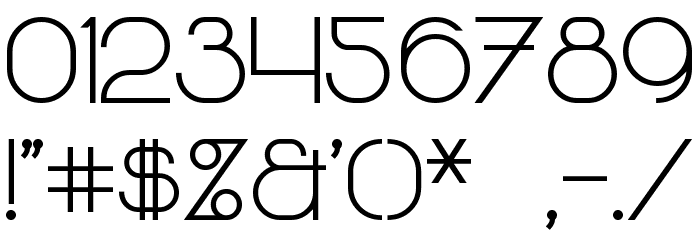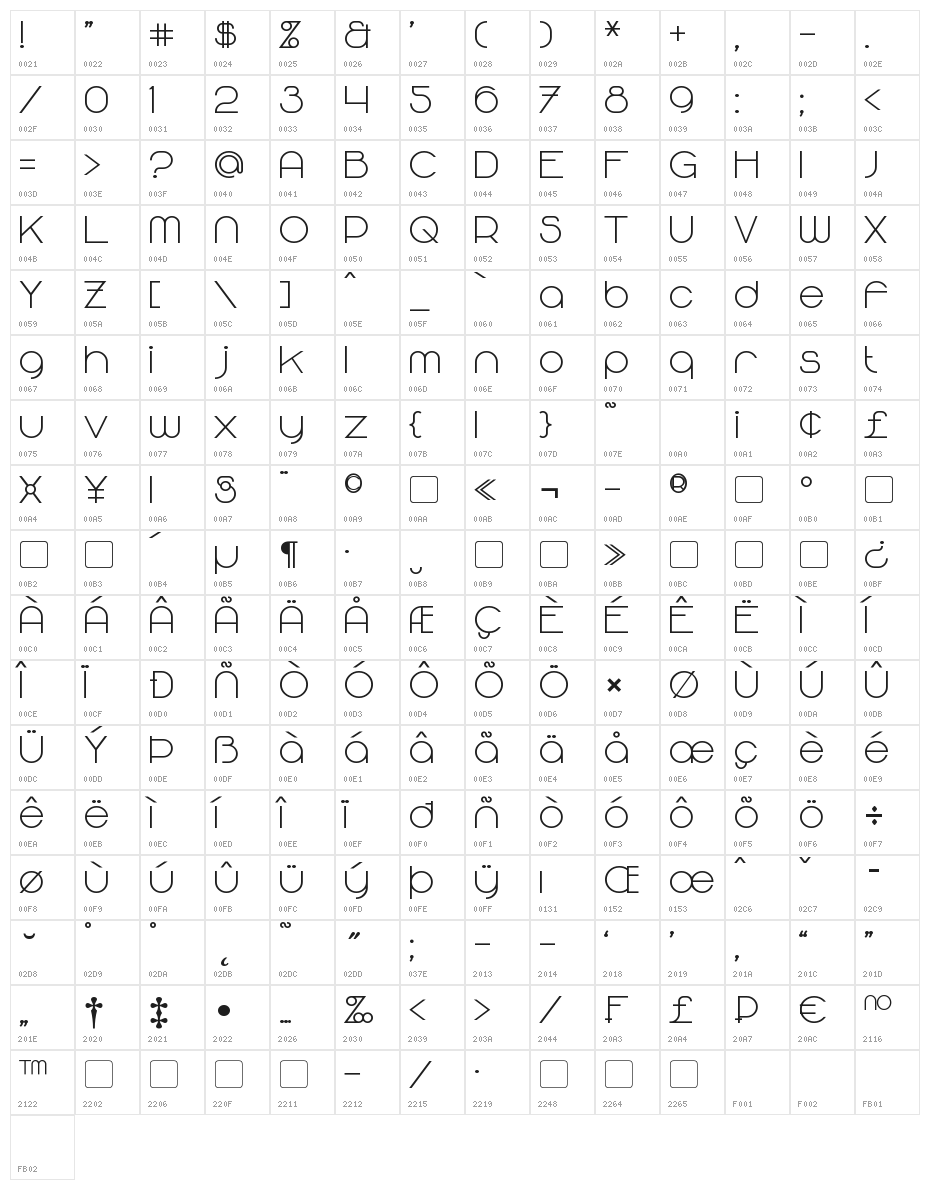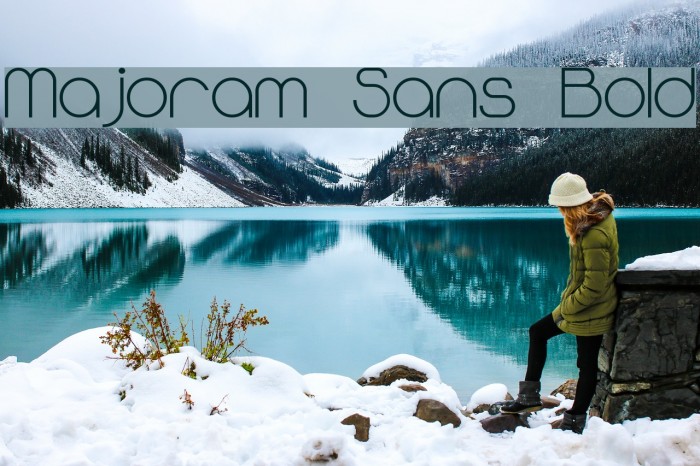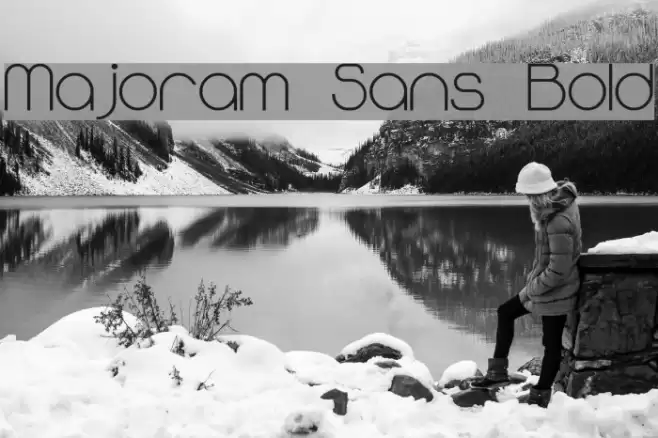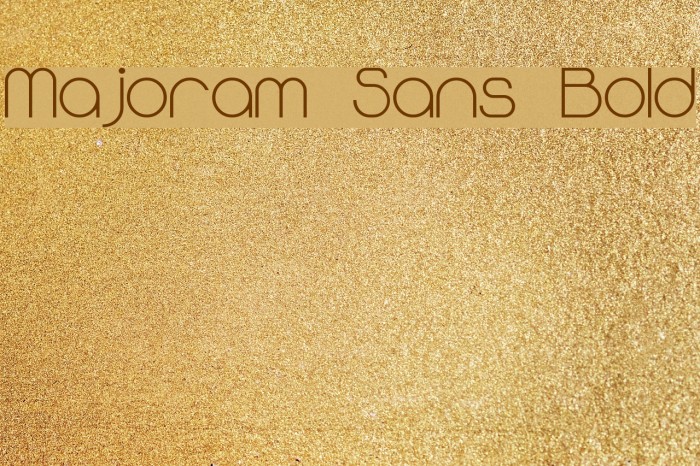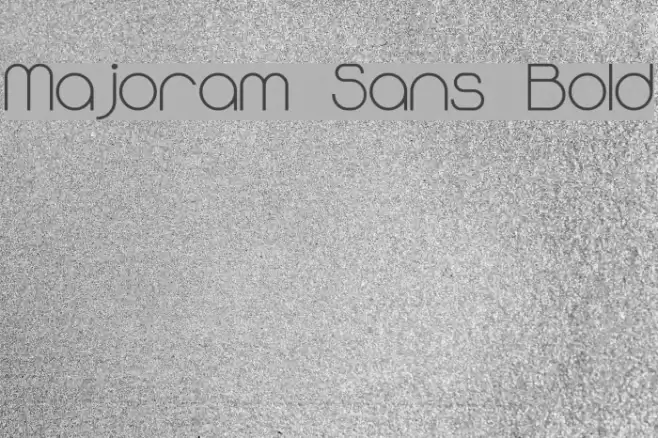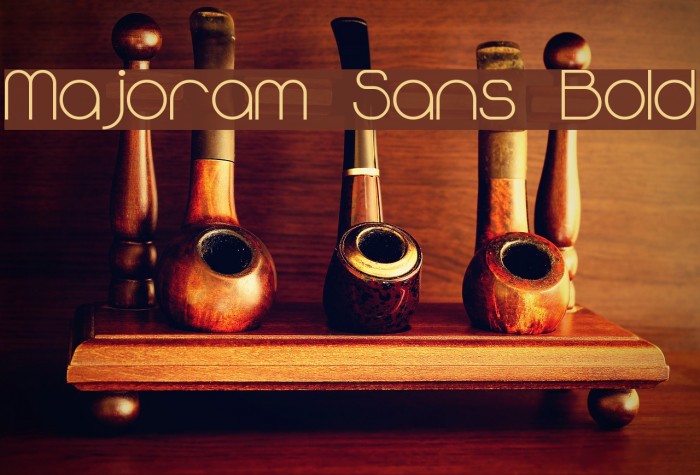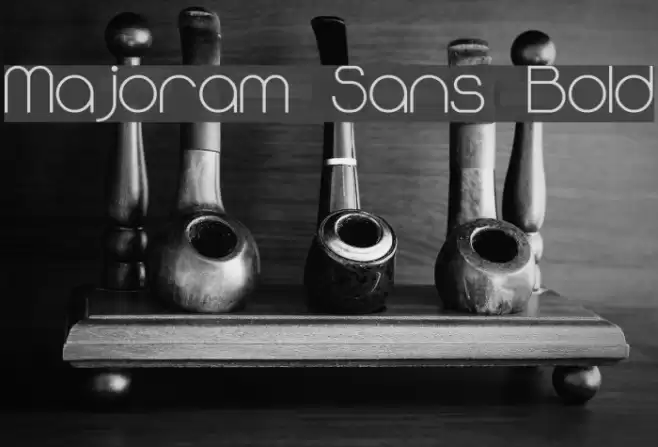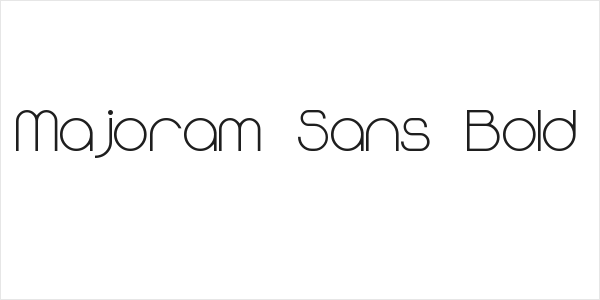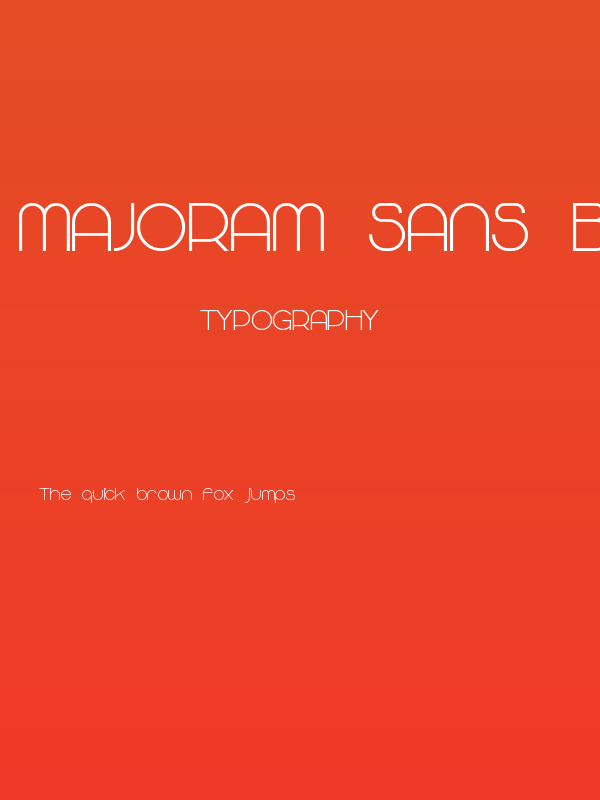
Majoram Sans Bold Font
Majoram Sans Bold Description
This font features a clean, geometric design with a modern aesthetic. The characters are composed of smooth, continuous lines that form rounded shapes, giving it a sleek and contemporary look. The uppercase and lowercase letters maintain a consistent style, with a uniform stroke width that enhances readability. The numerals and special characters are designed to match the overall style, ensuring a cohesive appearance across all text elements. Its minimalist design makes it versatile for various applications, from digital interfaces to print media.
| Use Case | Headlines, Logos, Digital Interfaces |
| Proposed Projects | Ideal for branding, digital interfaces, advertising, and modern print layouts. |